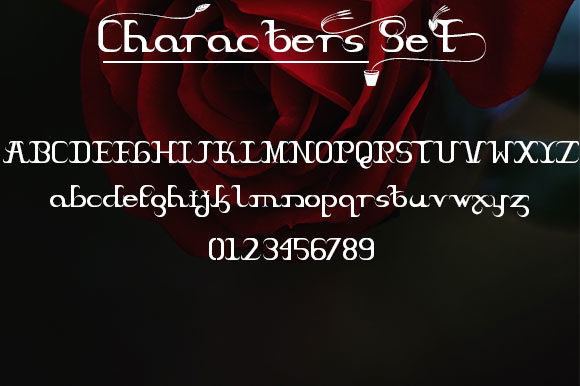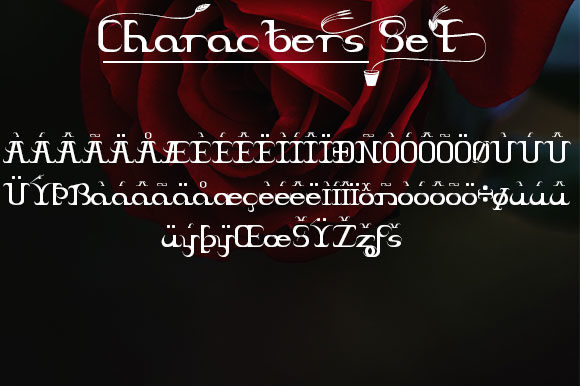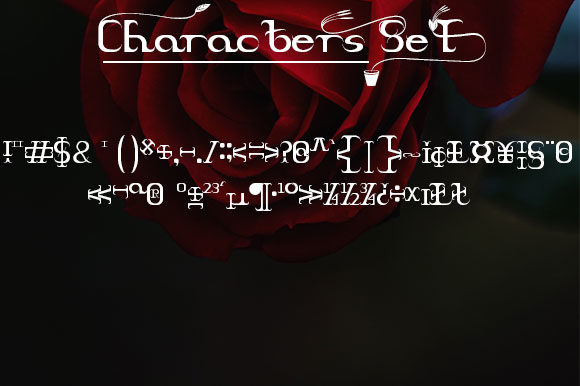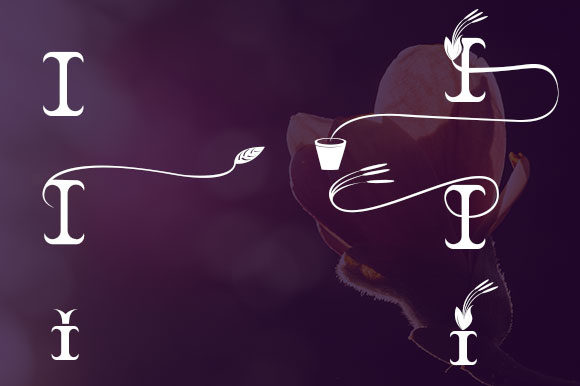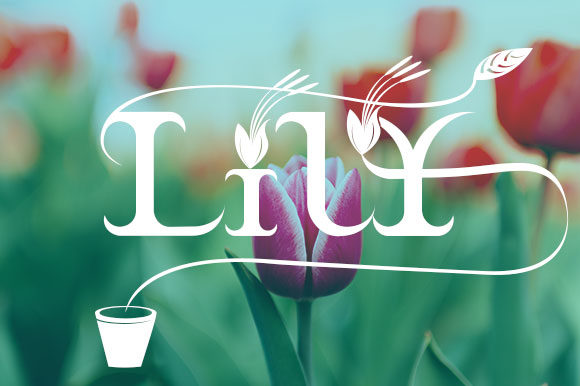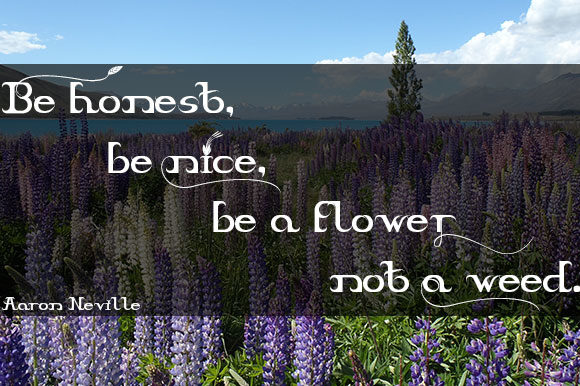
The Braxica Lily Font: A Beautiful Expression of Elegance and Uniqueness
I’ll never forget the moment I was working on a project for a client who wanted a font that embodied the beauty and tenderness of lilies. I had spent hours scouring the internet for the perfect font, but nothing seemed quite right. That was until I stumbled upon the Braxica Lily font. It was like a breath of fresh air – elegant, unique, and perfectly capturing the essence of lilies. In this article, I’ll share my experience with the Braxica Lily font, its features, and how to make the most of it in your designs.
An Honest Review of Braxica Lily Font
- ✨ Elegant and sophisticated design that screams luxury and refinement
- ✅ Highly legible, even at large sizes, making it perfect for titles and quotes
- 💕 Unique and creative take on traditional lily-inspired fonts
- 🎨 Highly versatile and can be used for a wide range of design projects
While the Braxica Lily font is an excellent choice for many design projects, there are a few things to keep in mind:
- 🤔 Some of the more intricate details may get lost at smaller font sizes
- ⚠️ Limited availability of certain characters, such as ligatures and stylistic alternates
A Practical Guide to Using Braxica Lily Font
The Designer Inspiration Behind Braxica Lily Font
The Braxica Lily font was designed with the beauty and uniqueness of lilies in mind. The designer wanted to create a font that captured the elegance and sophistication of these flowers, while also conveying a sense of tenderness and refinement. The result is a font that’s perfect for designs that require a touch of luxury and creativity.
Q: What is the Braxica Lily font best used for?
A: The Braxica Lily font is best used for designs that require a touch of elegance and sophistication, such as titles, quotes, and headings.
Q: Is the Braxica Lily font suitable for body text?
A: While the Braxica Lily font is highly legible, it’s not recommended for body text due to its decorative nature. It’s best used for titles, headings, and quotes.
Q: Is the Braxica Lily font available in different languages?
A: The Braxica Lily font may not be available in all languages, but it does support a range of languages, including English, French, and Spanish.